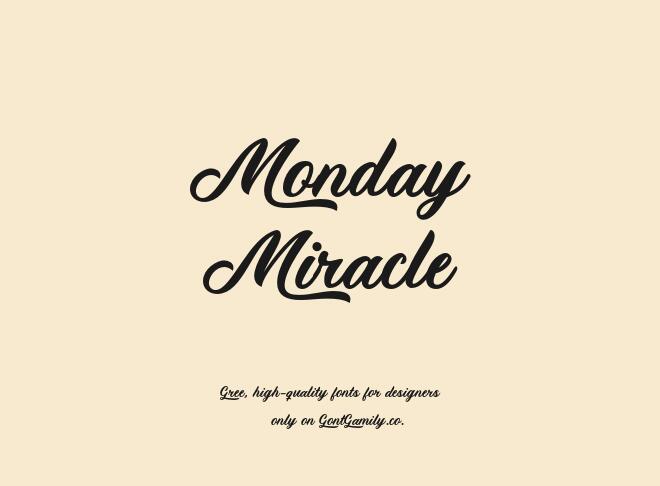
Monday Miracle Font
Monday Miracle Font is a modern, playful, and handwritten style font that adds an authentic and compelling feel to your design projects. With its unique character and style, it's perfect for logos, business cards, quotes, posters, and more. This font is a great alternative to more traditional handwritten fonts, providing a unique twist that sets your designs apart. It's free for personal use, making it an excellent choice for both hobbyists and professional designers. Its versatility and distinctive style make Monday Miracle Font a must-have for your font collection. The font is designed by the Creative Design Studio, known for their modern and creative approach to typography.